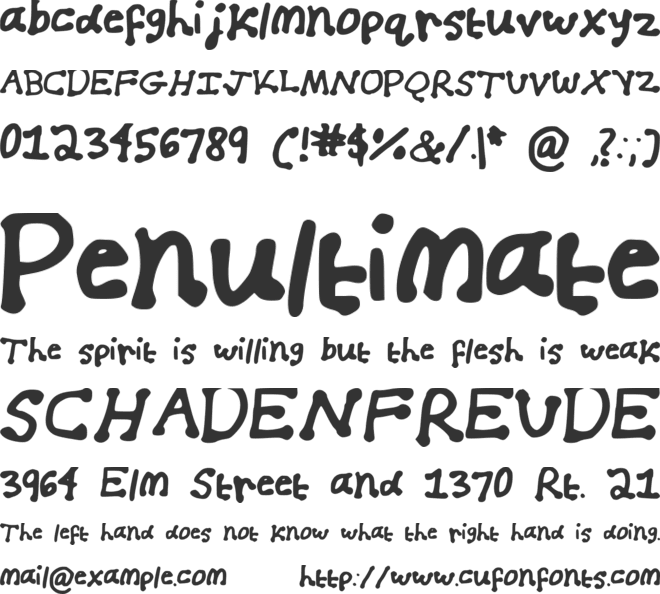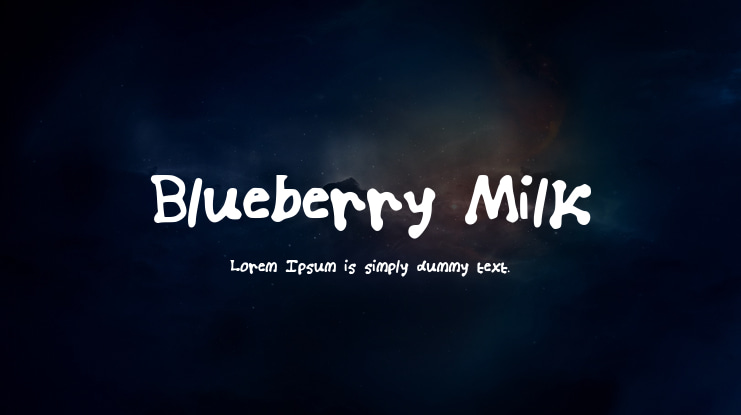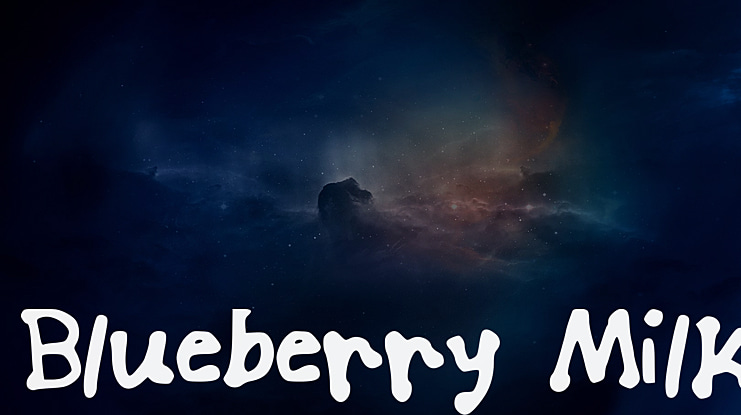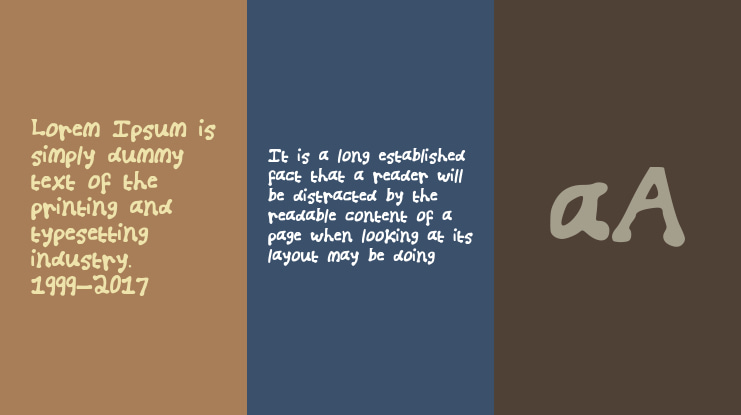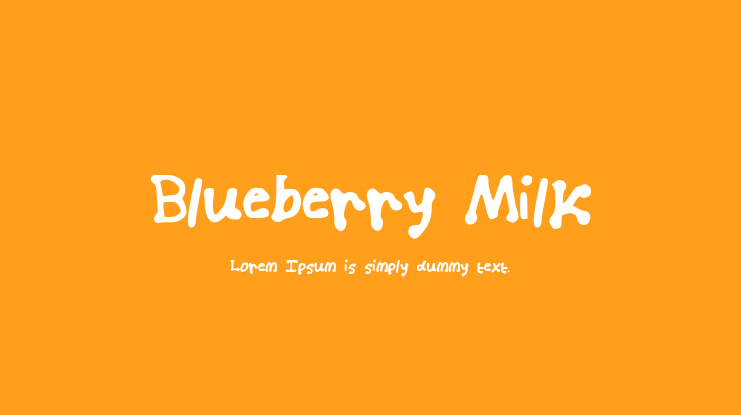
Blueberry_Milk Font
A quirky and fun handwritten font. HOW TO INSTALL:Click 'Download'. Extract the file to your desktop and read the readme file. Right click on the .ttf file and click 'Install'.Message me if problems with this font occurs, such as letters not showing up, numbers, etc.The Capital D letter is chopped off at the top, as well as a few others slightly less chopped. I would recommend usually using the lowercase letters.